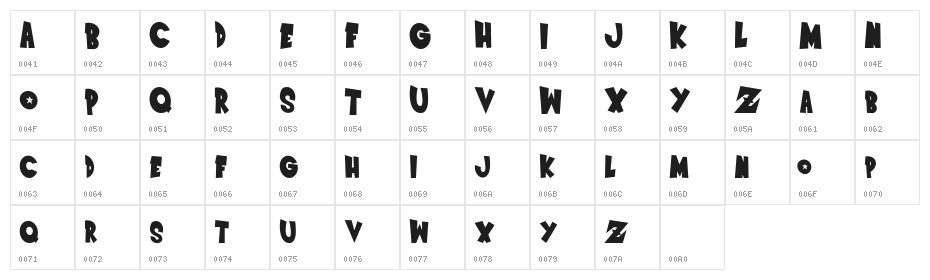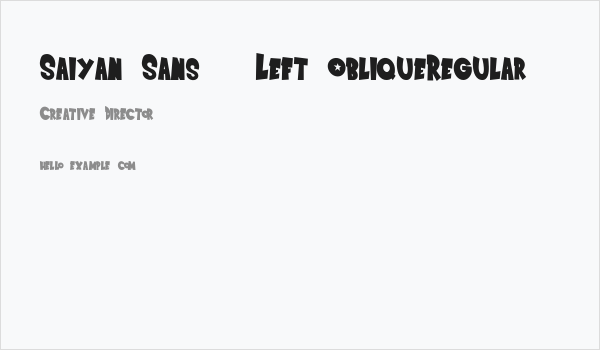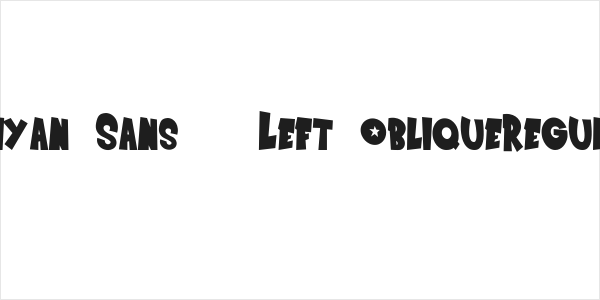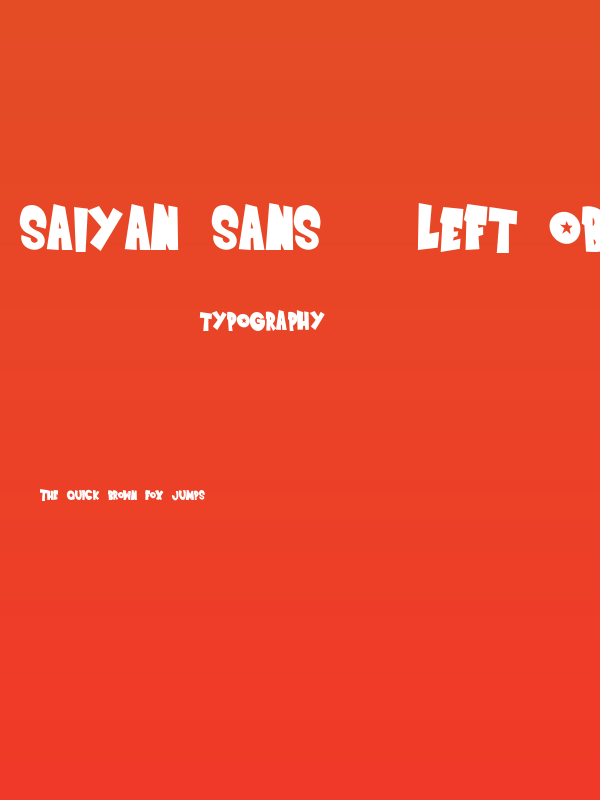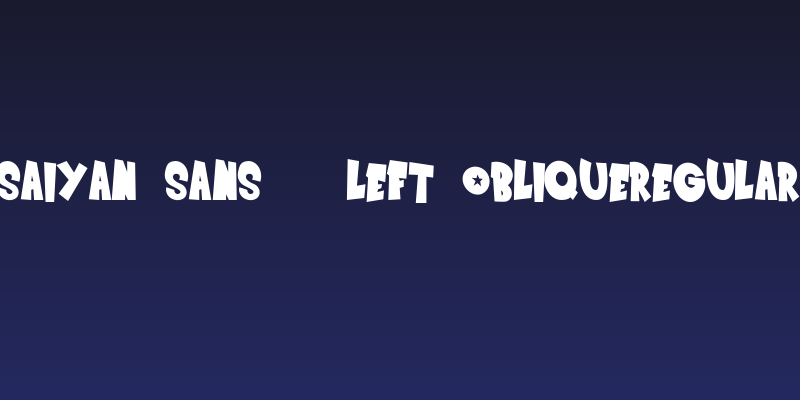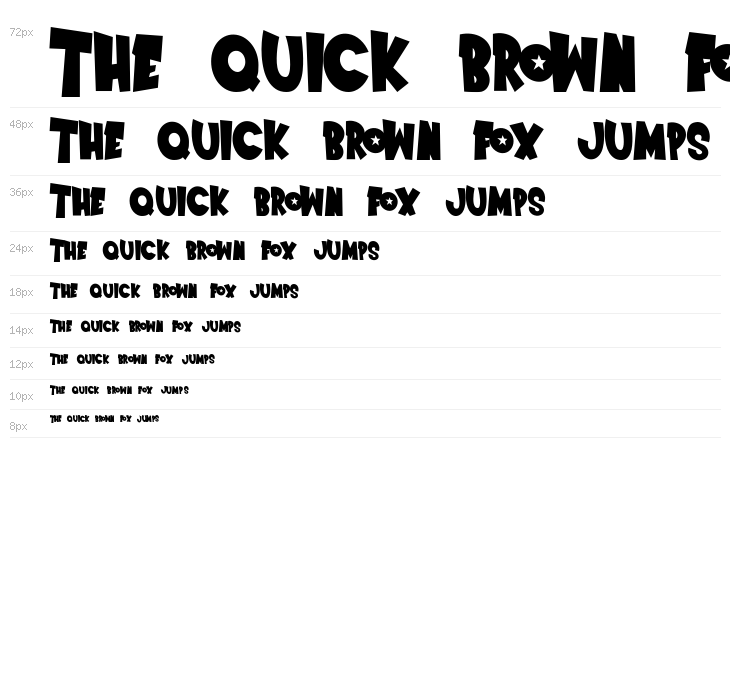
Saiyan Sans - Left ObliqueRegular Font
Saiyan Sans - Left ObliqueRegular Description
This font features a bold and dynamic style with a playful, cartoonish aesthetic. The characters are heavily stylized with exaggerated angles and curves, giving them a sense of movement and energy. The uppercase letters are particularly striking, with some incorporating unique design elements like stars. The font's thick strokes and solid fill make it highly legible and impactful, ideal for grabbing attention. Its whimsical nature makes it suitable for creative and informal applications, adding a fun and lively touch to any design.
| Proposed Projects | Ideal for comic books, children's book covers, playful branding, and eye-catching posters. |